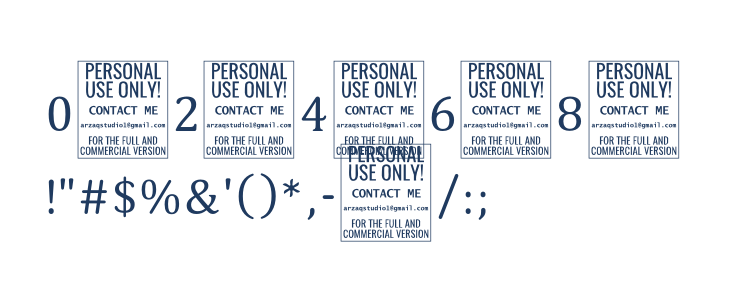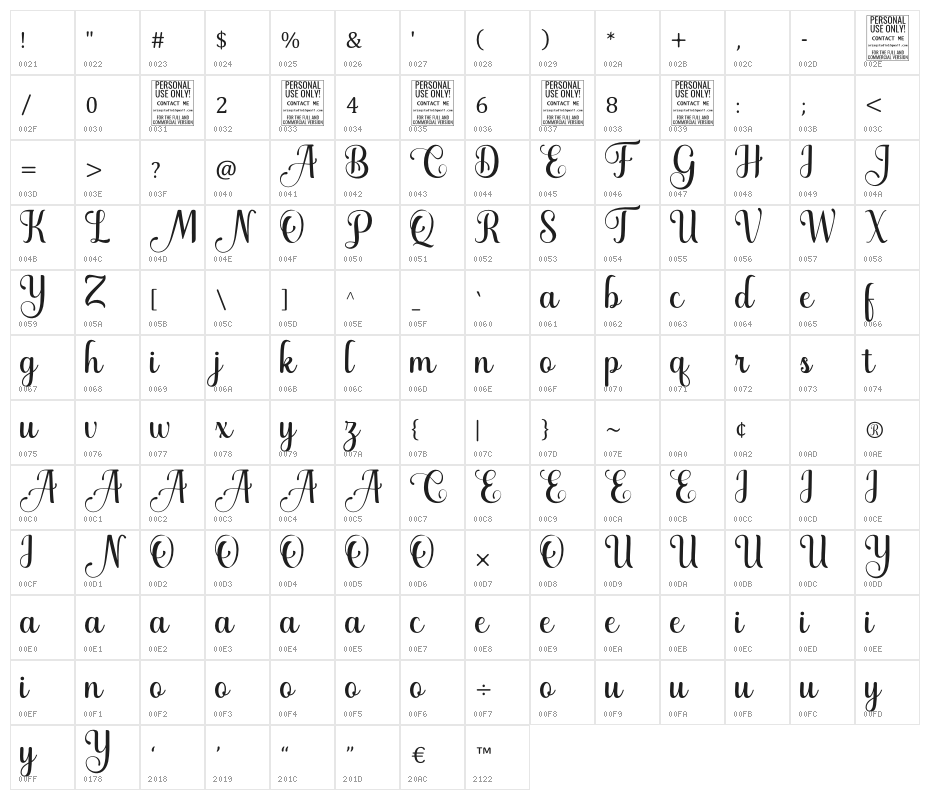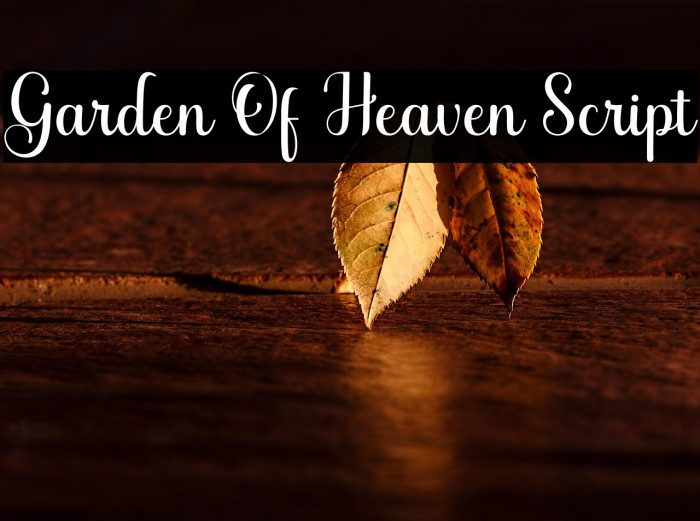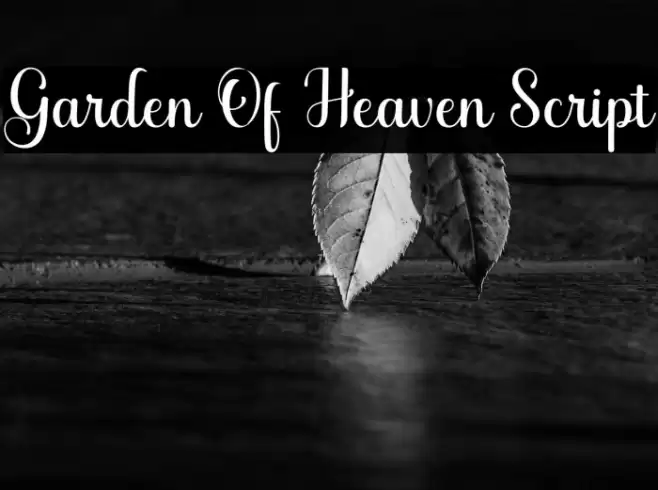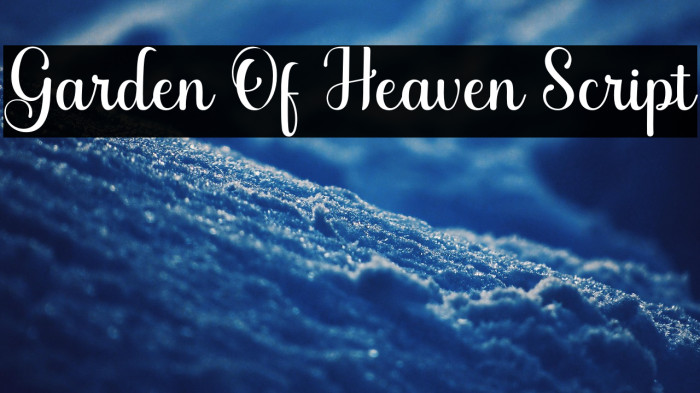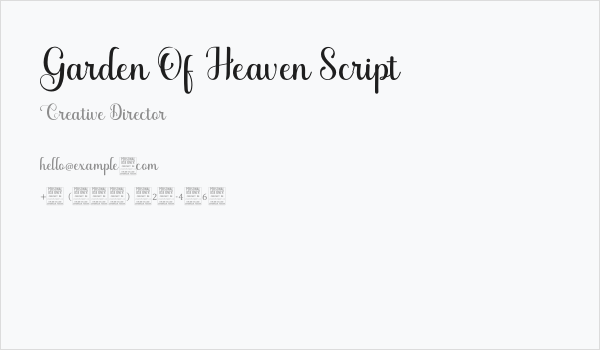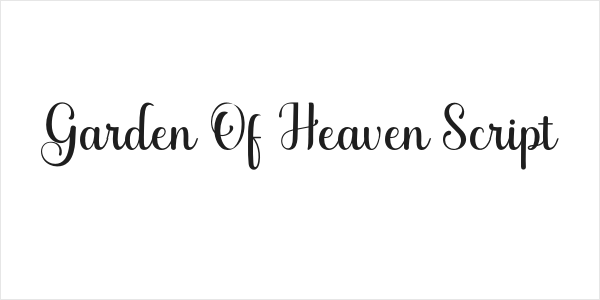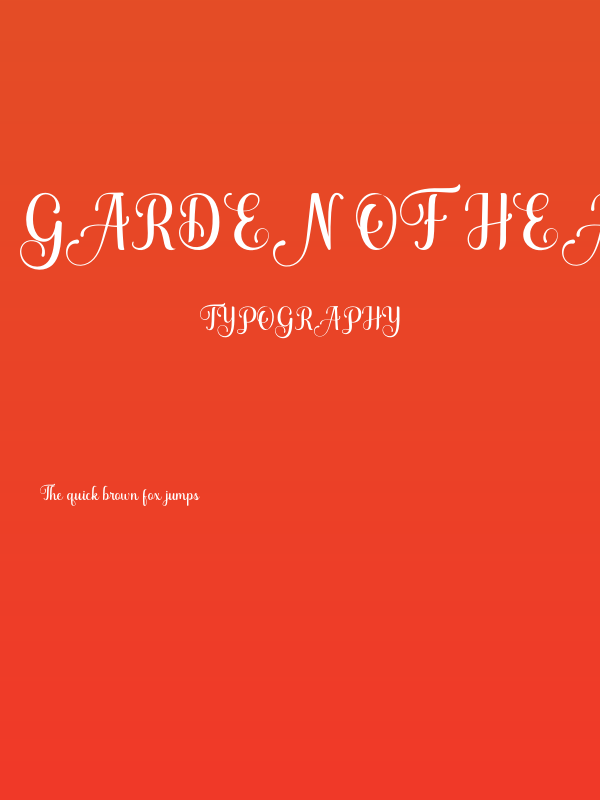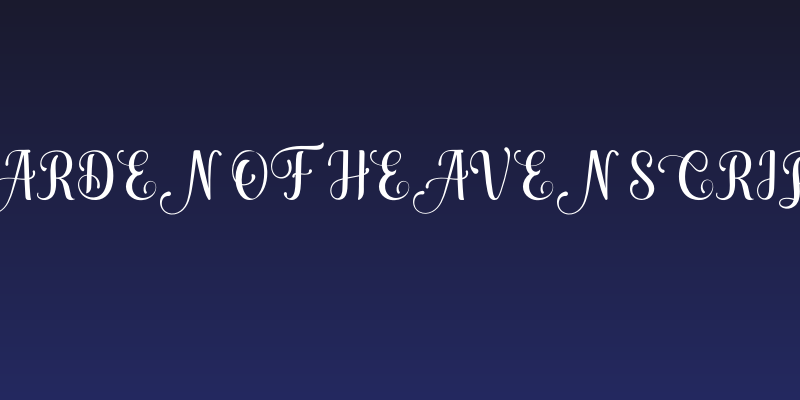
Garden Of Heaven Script Font
Garden Of Heaven Script Description
This font features an elegant and flowing script style, characterized by its graceful curves and loops. The uppercase letters are ornate, with flourishes that add a touch of sophistication and charm. The lowercase letters maintain a consistent flow, enhancing readability while retaining a decorative flair. The numerals and special characters are designed to complement the overall script style, ensuring a cohesive look across all text. This font is suitable for projects that require a personal and artistic touch, such as invitations, greeting cards, and branding materials.
Use CaseHeadlines, Logos, Invitations
Proposed ProjectsIdeal for wedding invitations, greeting cards, branding, and artistic projects.